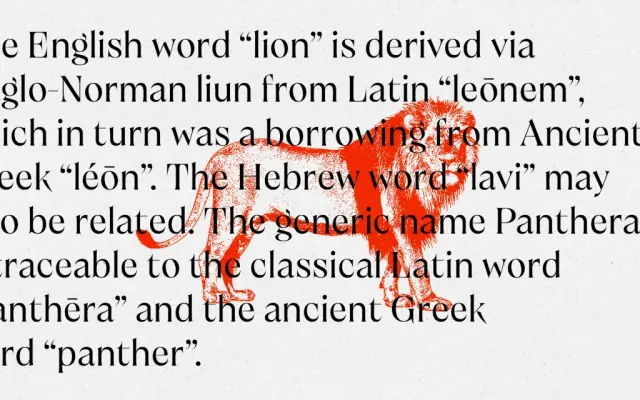
Brillante
A high-contrast display serif built for fashion and luxury applications, with spiked V and W, thorn-like K and R, and short serifs that give it a sharp, jewellery-catalogue character.
Designed for titles, branding, editorial and packaging where a refined but assertive voice is needed, Brillante relies on extreme contrast and pointed details to evoke cut crystal and precious materials. The family spans 15 static fonts across Thin to Black in Condensed, Normal and Wide widths, with a two-axis variable font covering both weight and width. No italics are included, reinforcing its identity as a display-first design.
A high-contrast serif with sharp, spiked details and short serifs, placing it firmly in the display serif tradition aimed at fashion and luxury contexts rather than text setting.